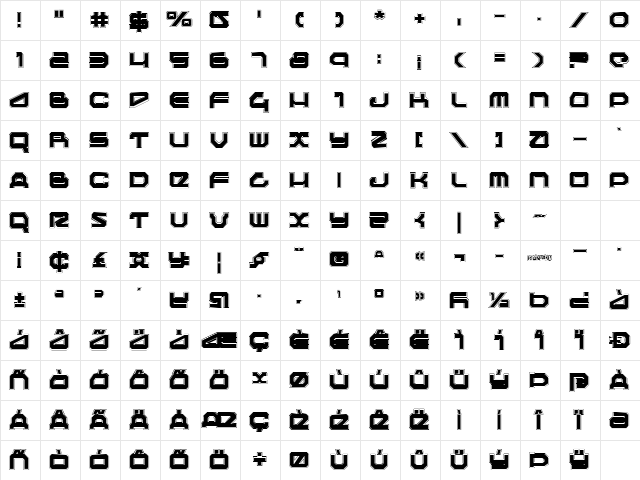
Traveler Pro Regular
Traveler Pro Family
Design Context for Traveler Pro
Traveler Pro is a composed and adaptable typeface that performs quietly and consistently across a wide range of design contexts.